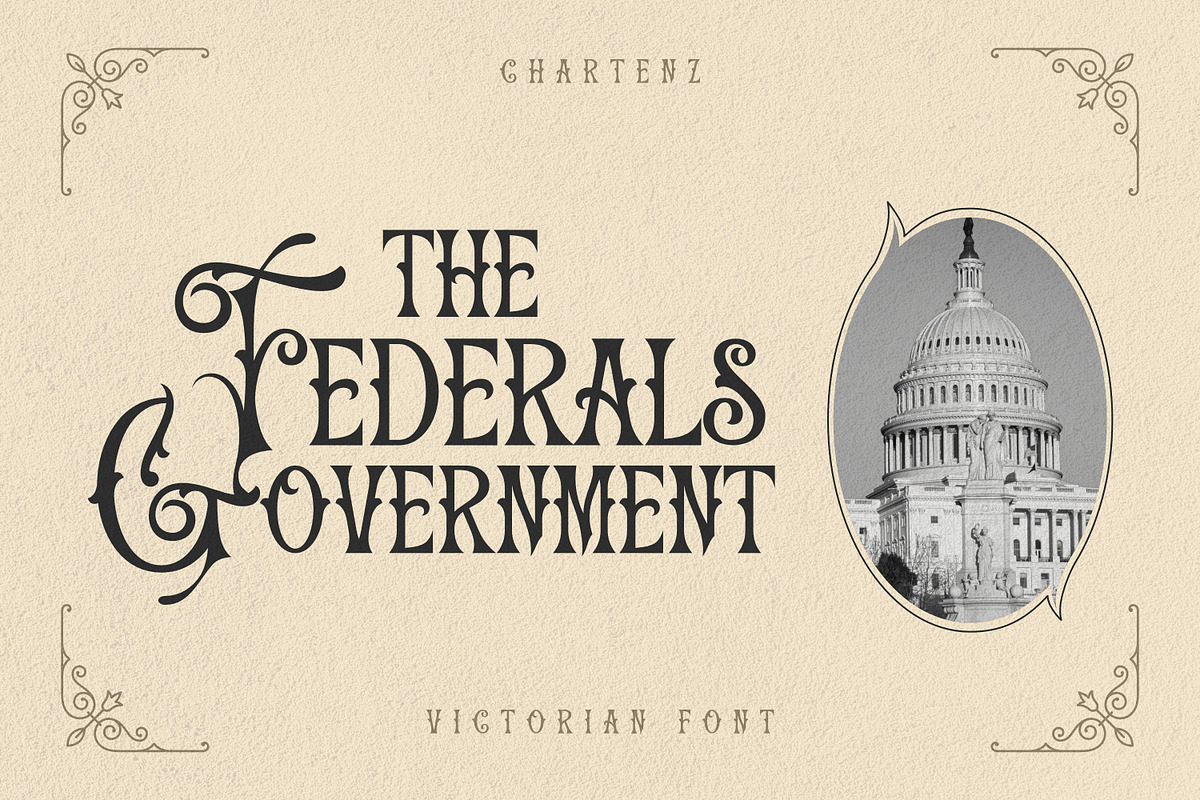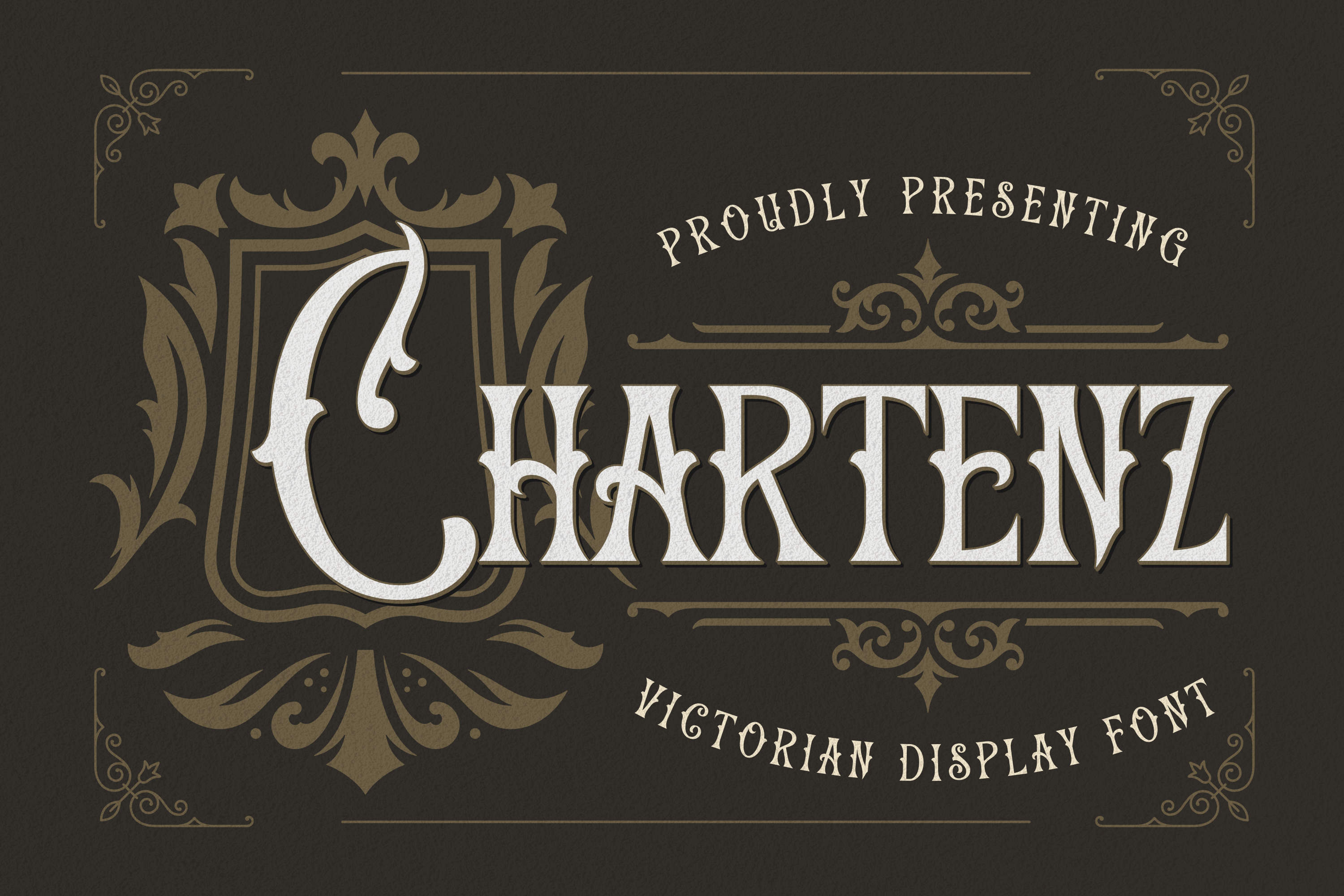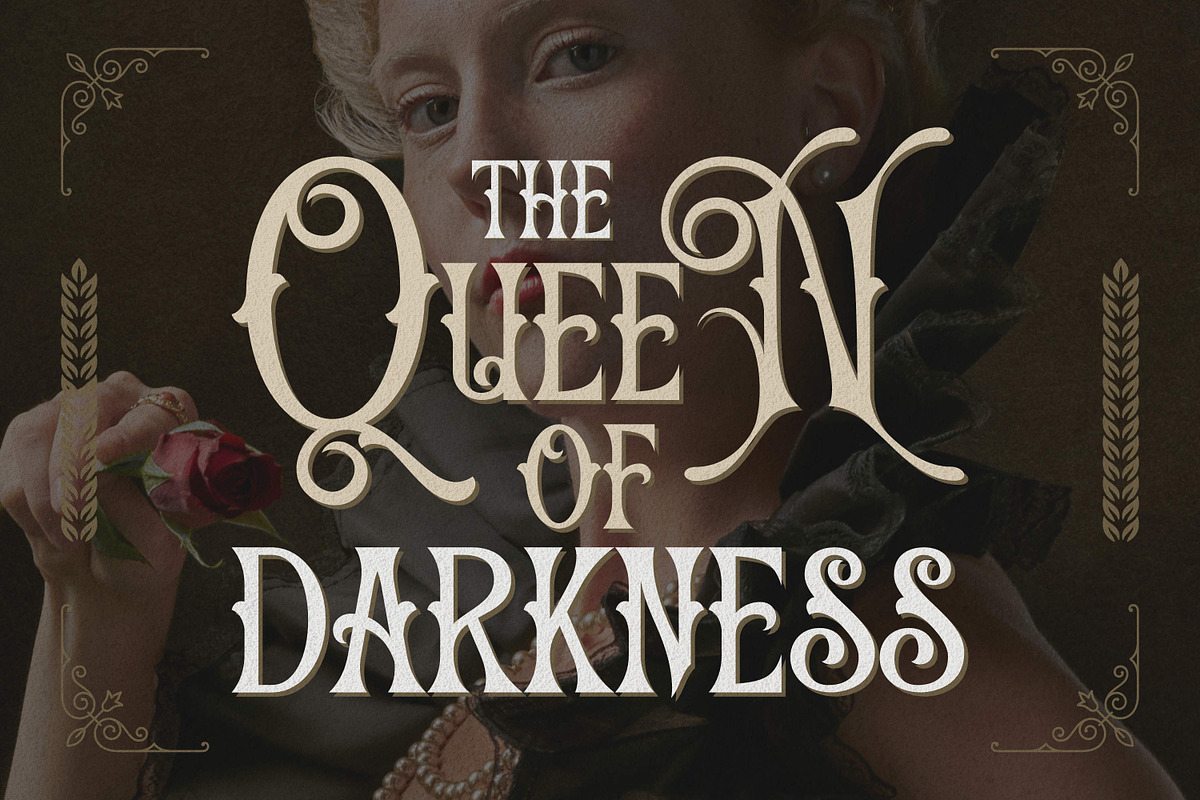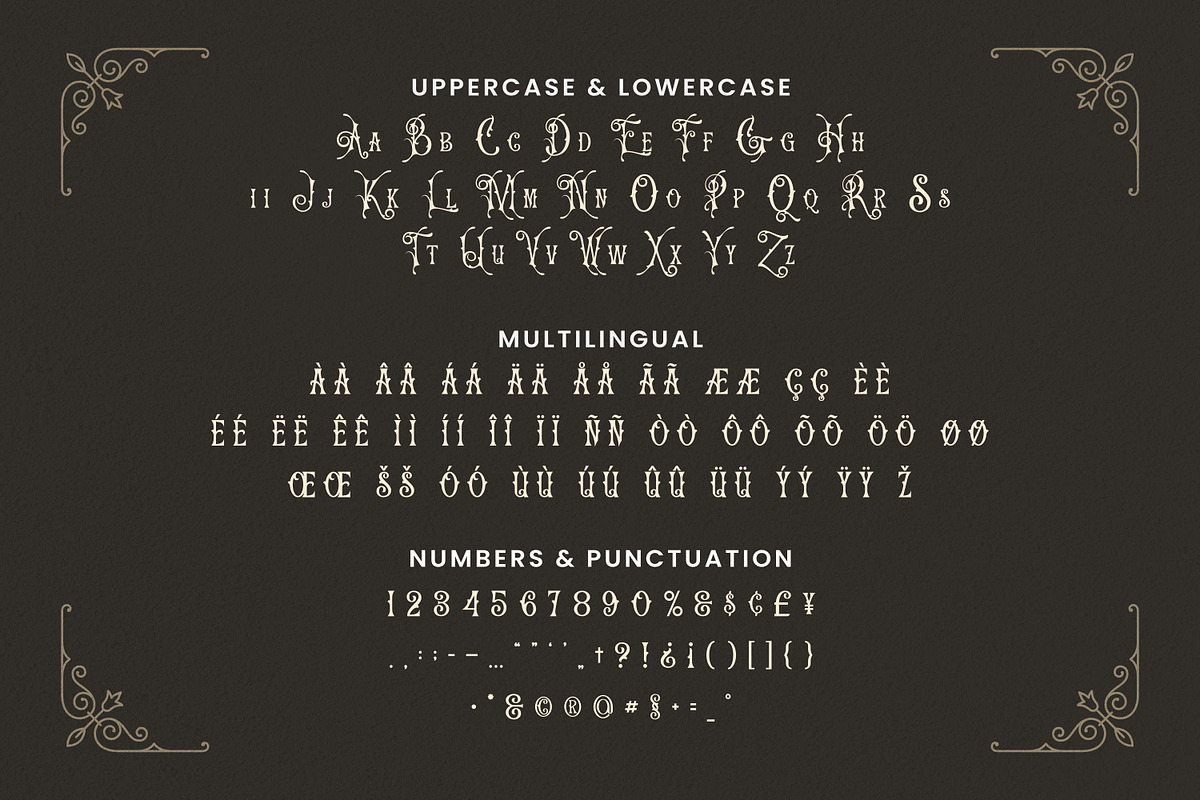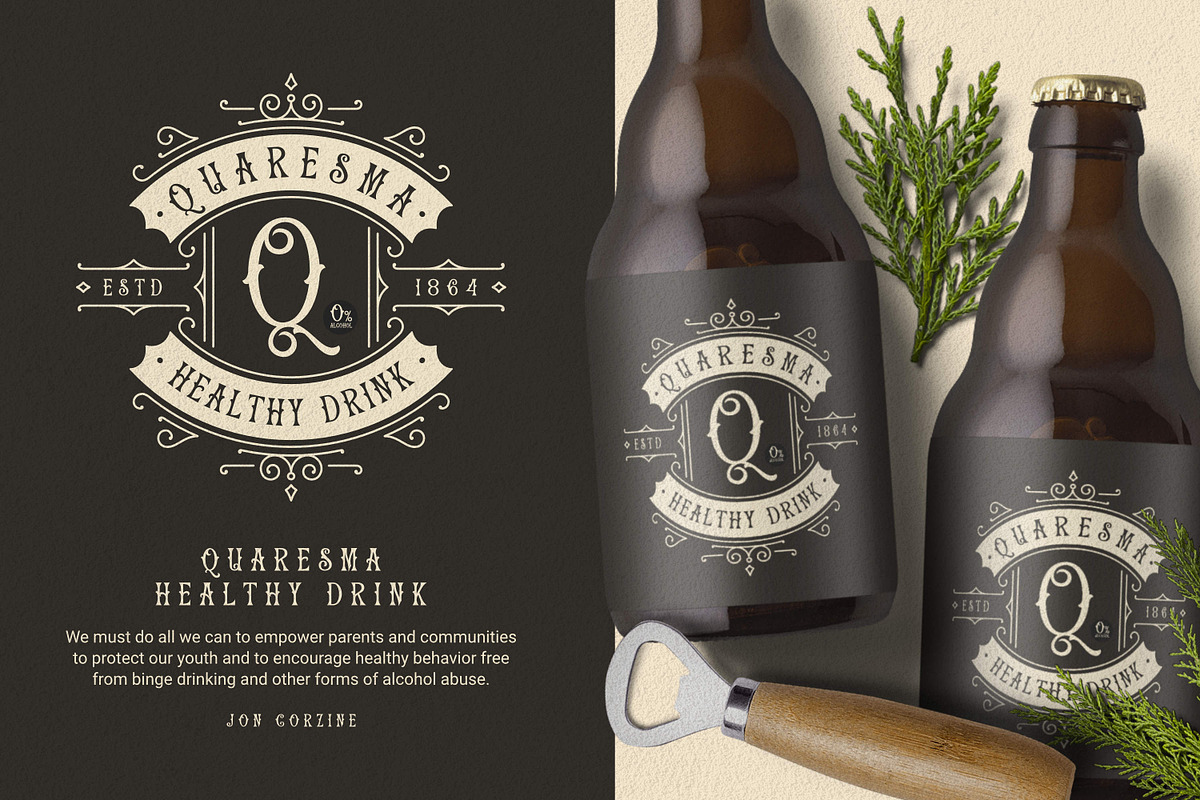
Chartenz Font
Font product Suitable for T-shirt designs, Crafts, Posters, Illustrations, Books, Packaging, Logos, Mugs, Games, Web, Wall Art or other design works.